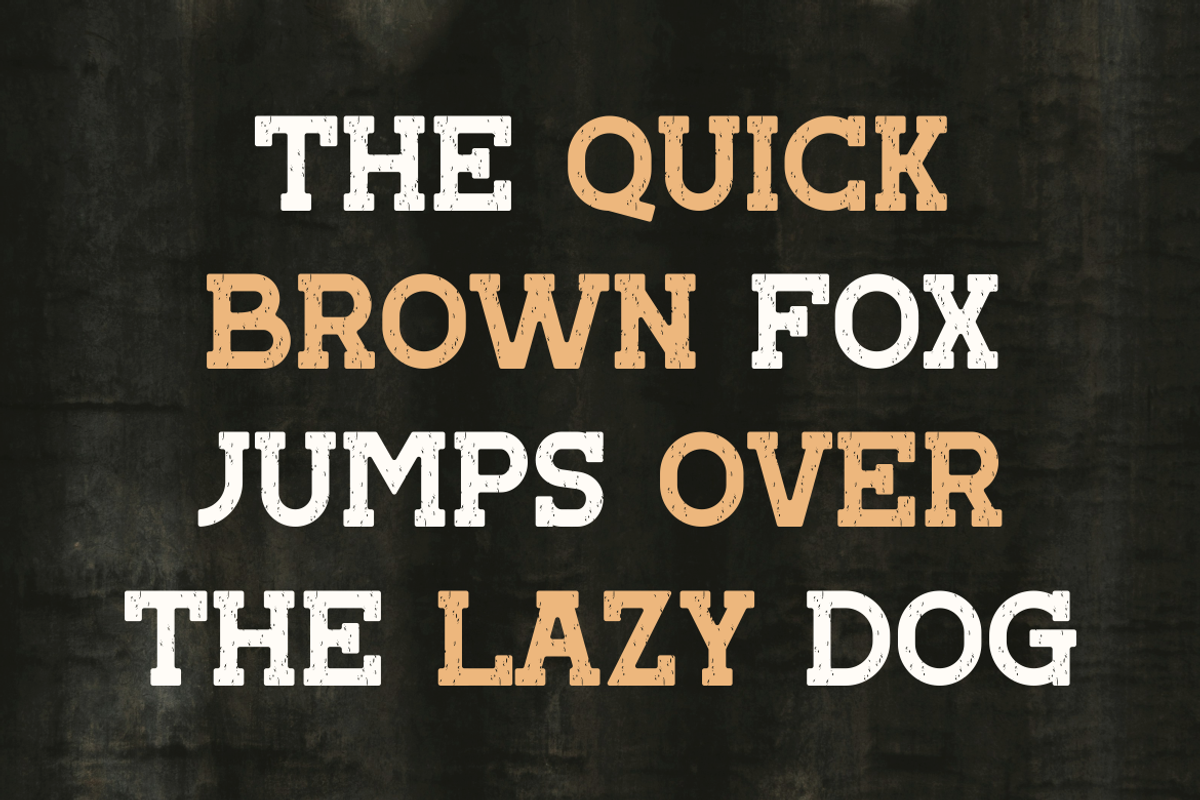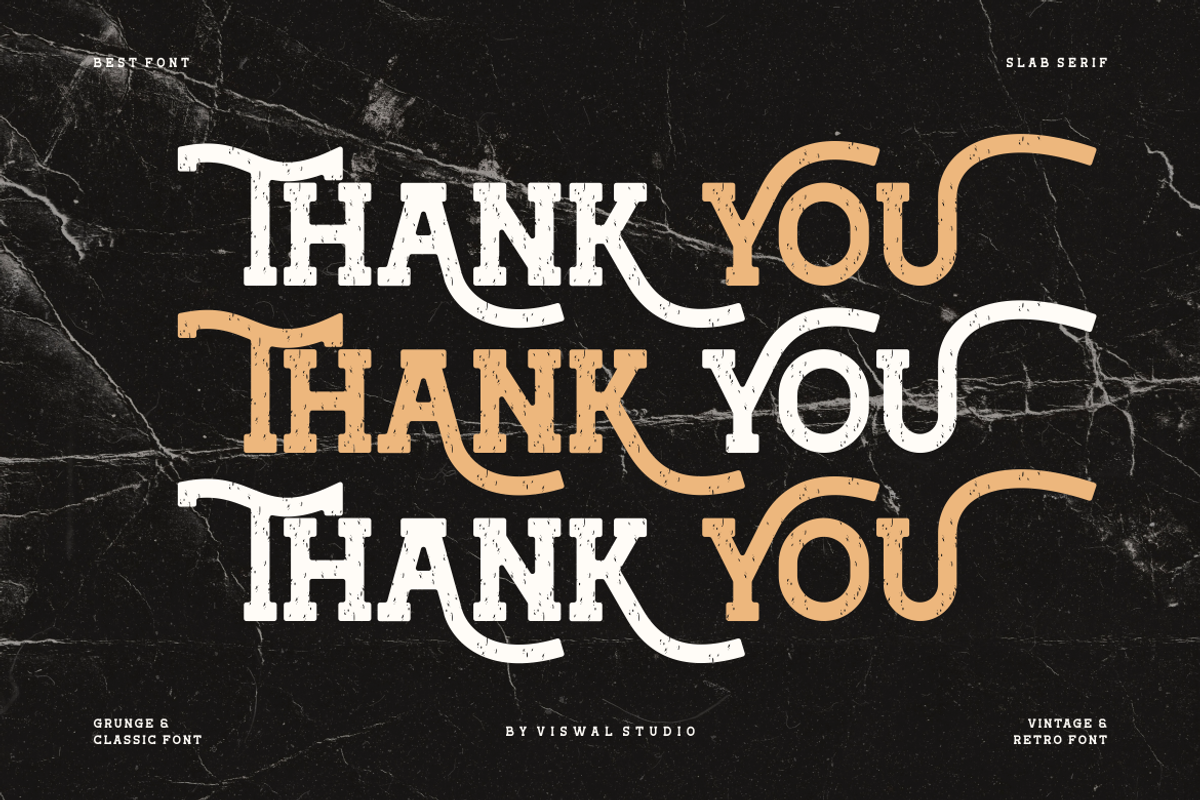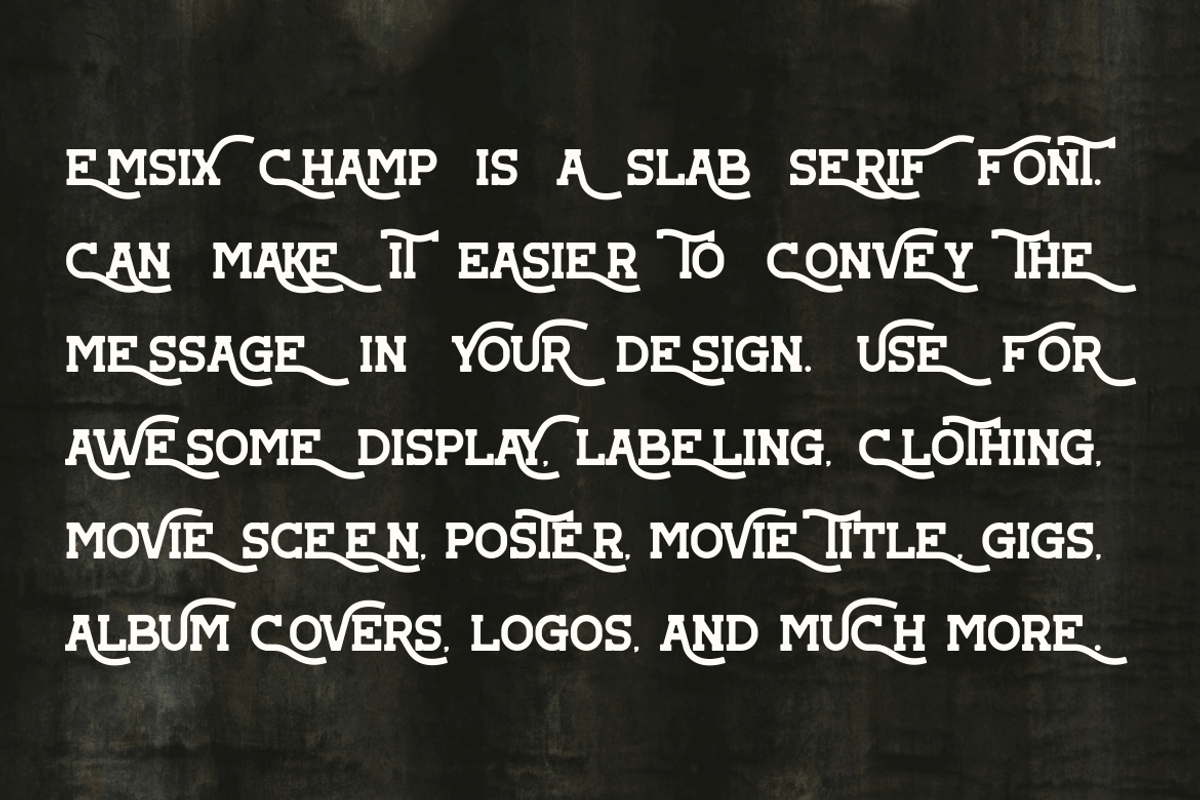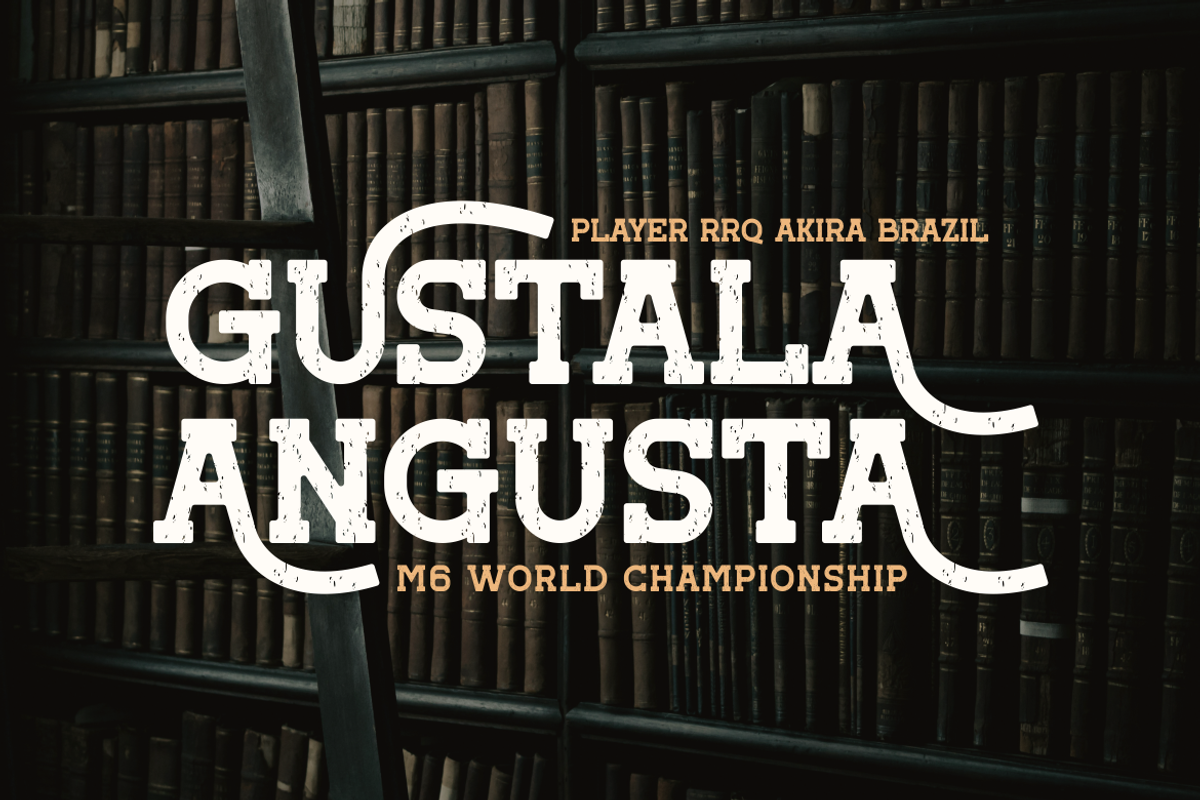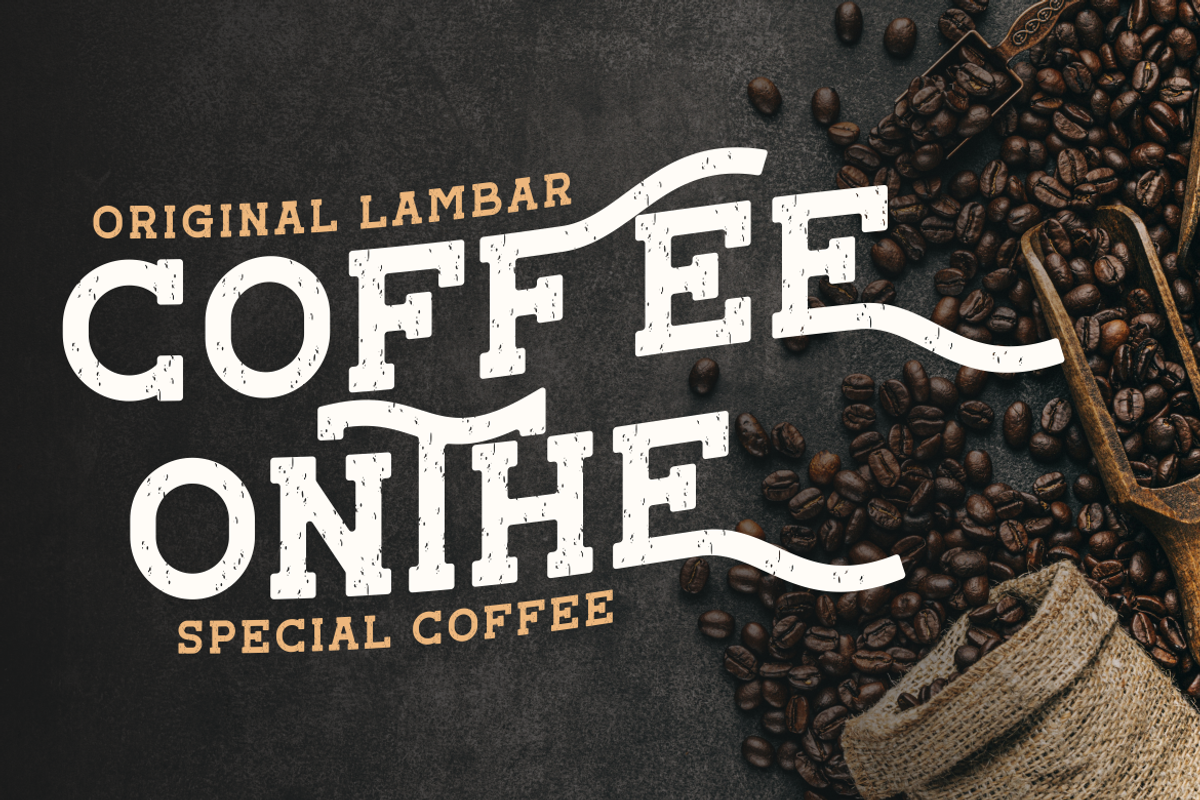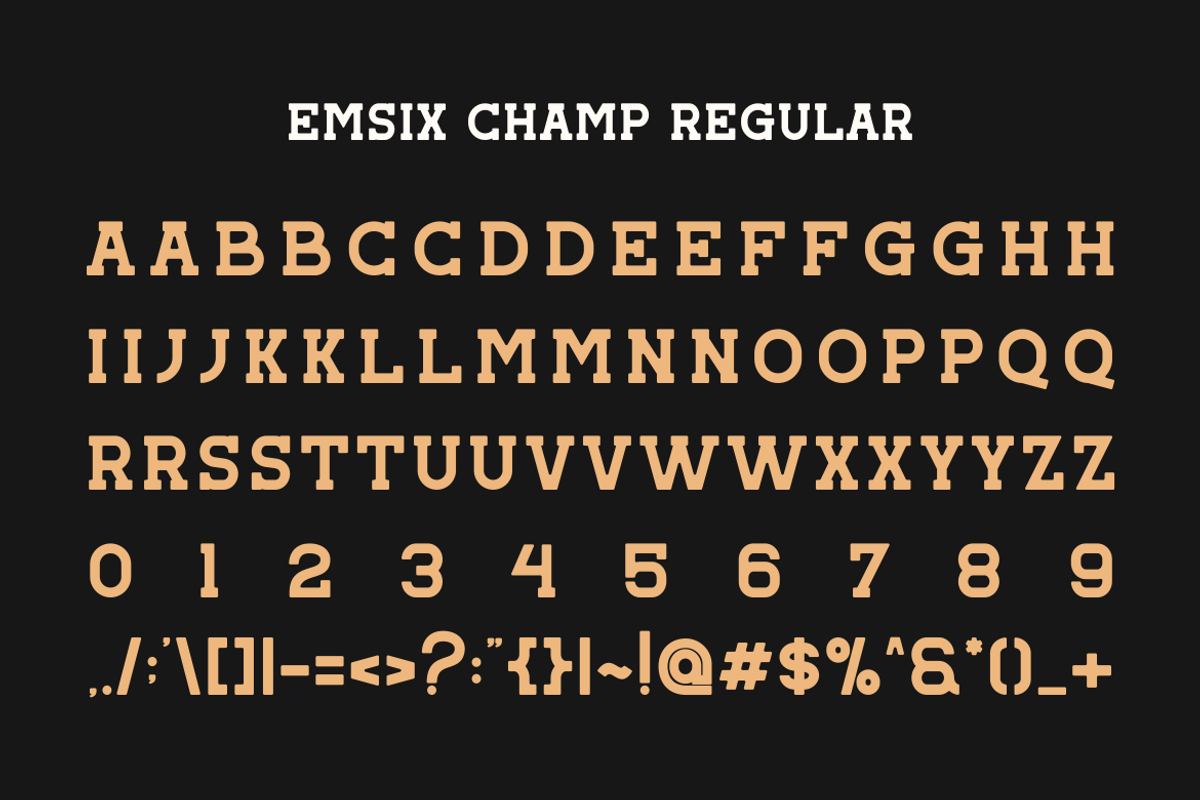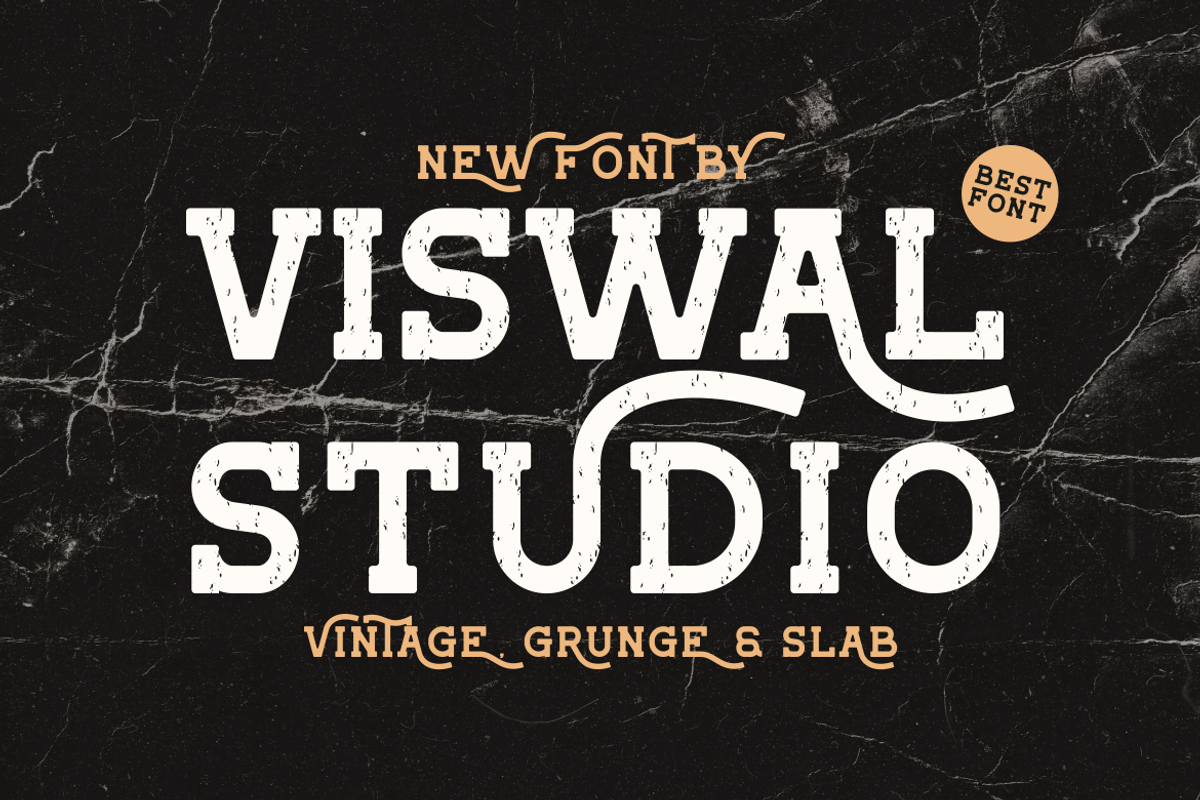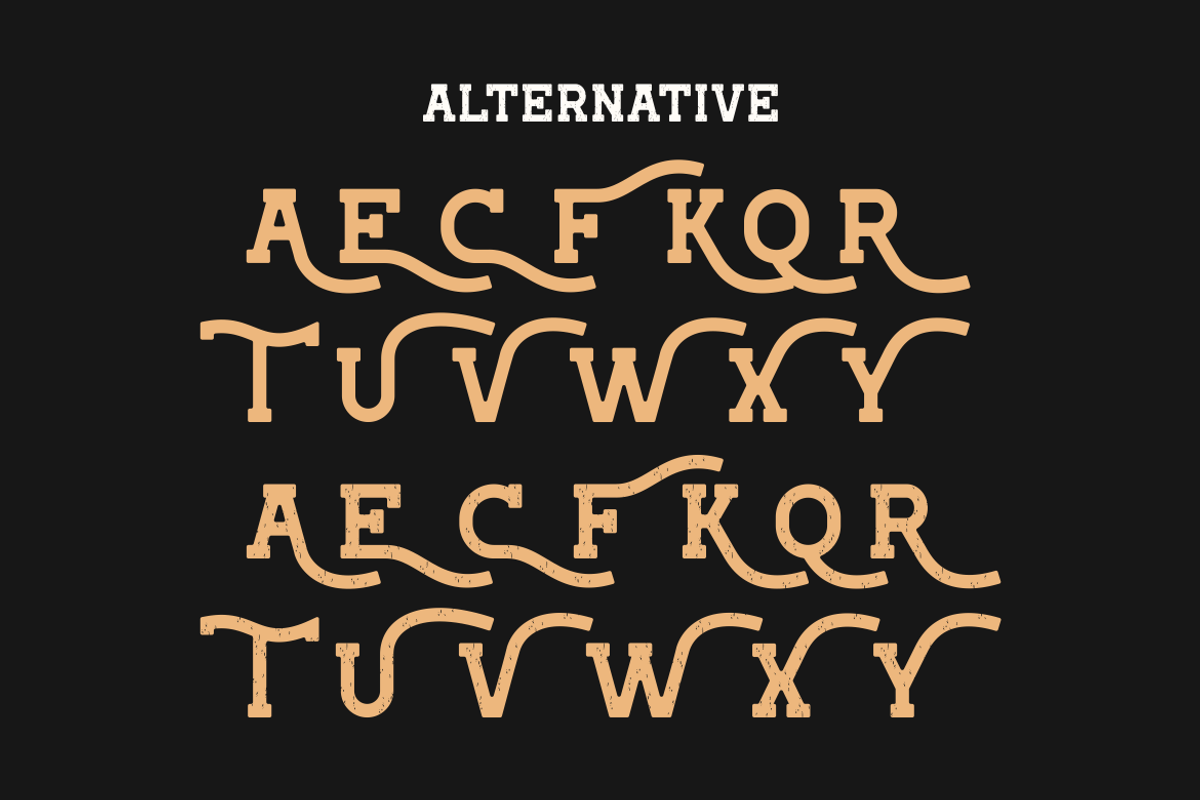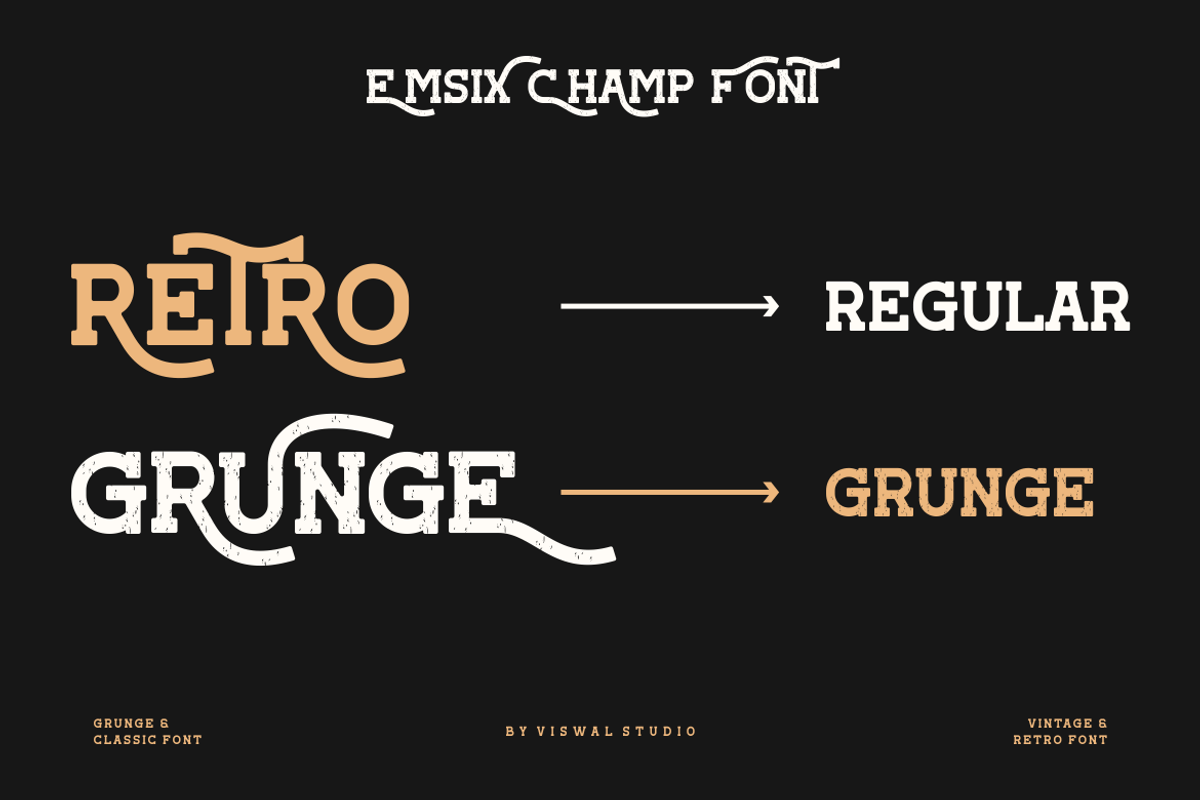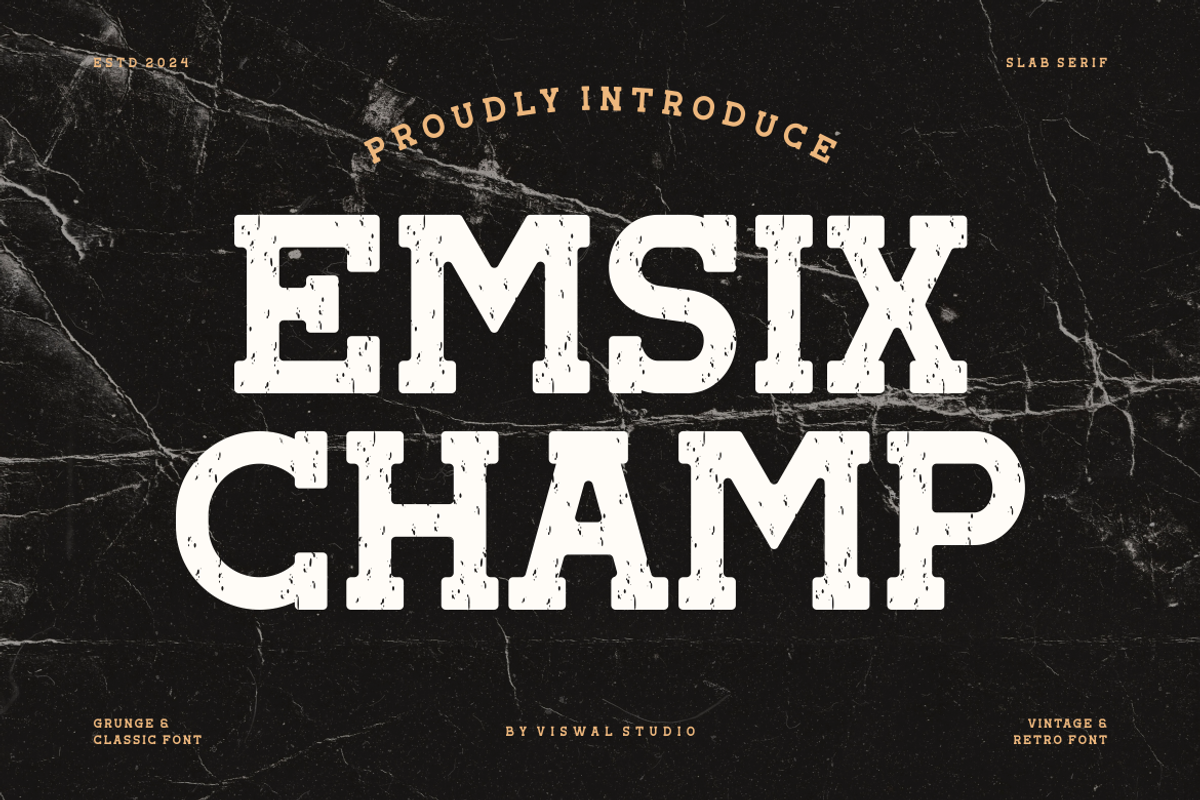
Emsix Champ - Vintage Retro Font
Presenting Emsix Champ Is A Vintage Retro Font
Can Make It Easier To Convey The Message In Your Design. Font Is Suitable For Logo, Labels, Badge, Branding, Magazine, Poster, Title, Gigs, Covers And Etc. Our Fonts Have Uppercase & Lowercase, Numeral & Punctuation, And Opentype Features. For Amazing Designs You Can Mix With Other Fonts As A Complement.